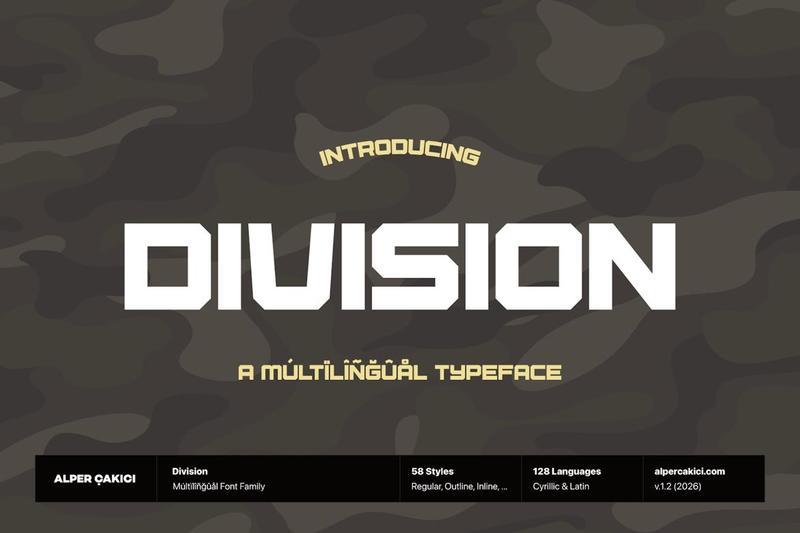
Division – Bold Geometric Font Family X9UEHUX
**Division** is a **bold, geometric**, army-inspired typeface family featuring **58 styles and support for 128 languages (Latin + Cyrillic)**. Designed for high-impact visuals, Division includes angular, circular, rounded, inline, rimmed, brush, rough, and eroded variants.
**Included Styles (58 Total)**
Angular Italic Brush Brush Italic Circular Angular Circular Angular Italic Circular Brush Italic Circular Eroded Italic Circular Inline Italic Circular Noise Circular Noise Italic Circular Outline Italic Circular Pencil Italic Circular Rimmed Italic Circular Rough Italic Eroded Eroded Italic Inline Inline Italic Italic Outline Italic Pencil Pencil Italic Regular Rimmed Rimmed Italic Rough Rough Italic Rounded Angular Rounded Angular Italic Rounded Brush Italic Rounded Eroded Italic Rounded Inline Italic Rounded Noise Rounded Noise Italic Rounded Outline Italic Rounded Pencil Italic Rounded Rimmed Italic Rounded Rough Italic